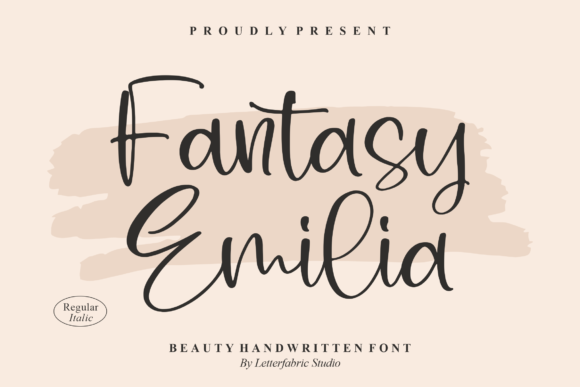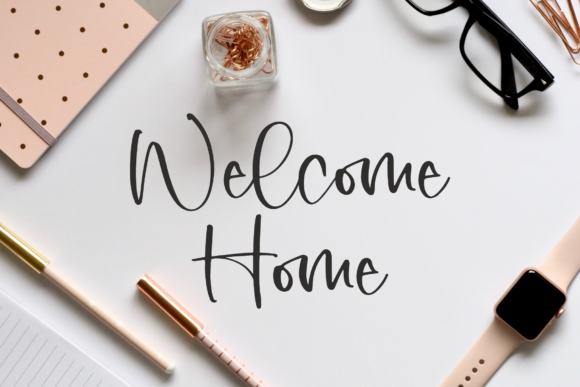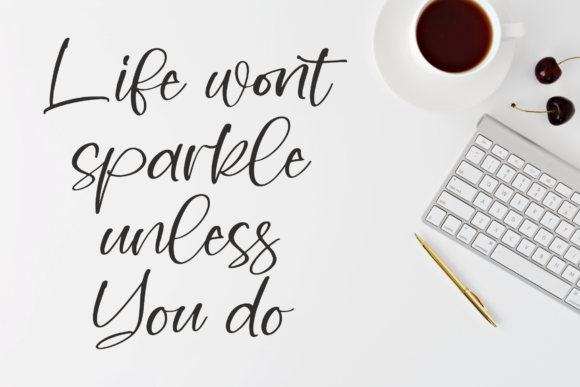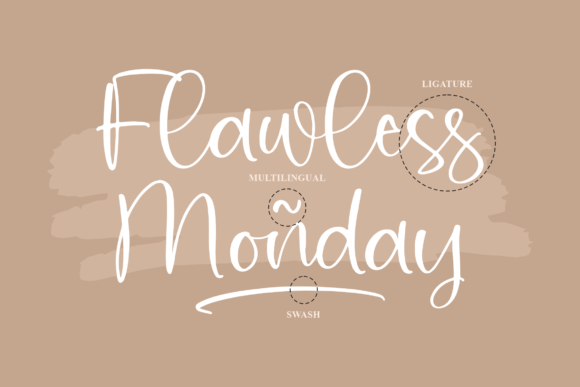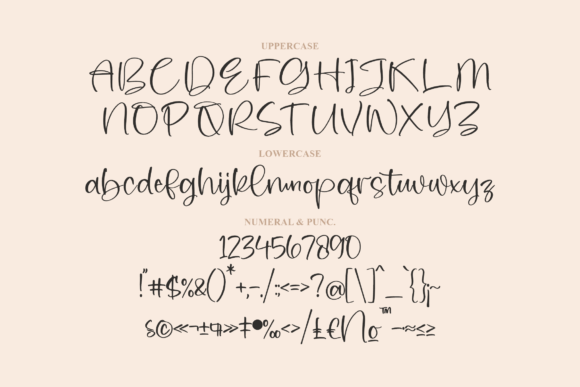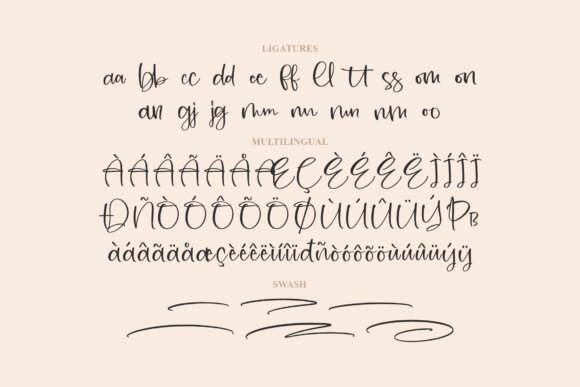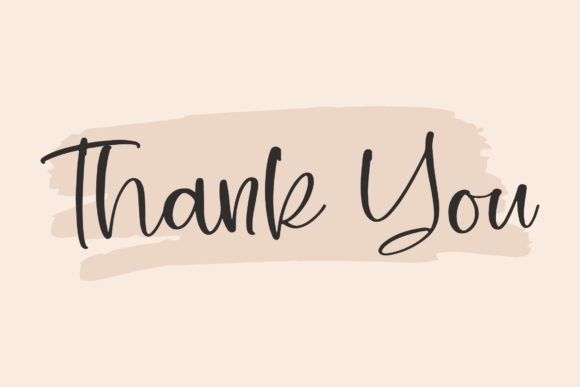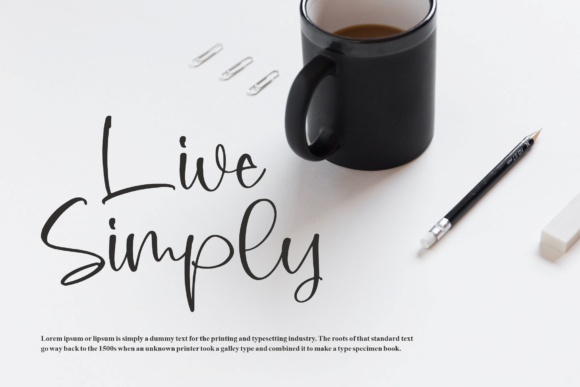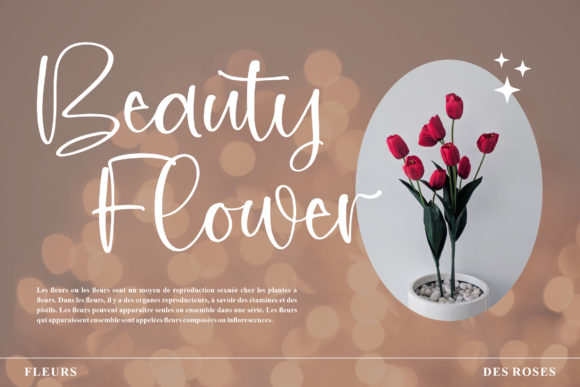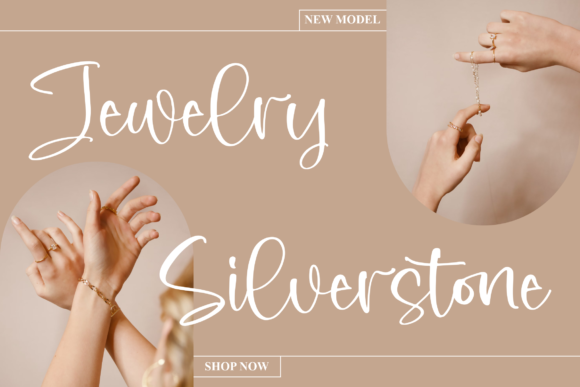
Fantasy Emilia Font
About Fantasy Emilia Font
Introducing Fantasy Emilia, a beautiful handwritten font crafted to add a touch of charm and elegance to a wide range of creative projects. This versatile font is well-suited for diverse applications, including logos, branding projects, homeware designs, product packaging, quotes, posters, shopping bags, t-shirts, book covers, name cards, invitations, greeting cards, labels, photography watermarks, special events, and any other project that requires a beautiful script taste.
Fantasy Emilia stands out with its unique and enchanting handwritten style, bringing a sense of warmth and personality to your designs. Whether you’re creating a logo, enhancing product packaging, or designing a special event invitation, Fantasy Emilia adds a beautiful script taste that elevates the visual appeal of your work.
For branding projects, Fantasy Emilia becomes a distinctive element in establishing a memorable brand identity. Its handwritten charm adds a personal touch to logos and promotional materials, ensuring your brand communicates authenticity and approachability.
In the realm of product design, Fantasy Emilia lends an artistic touch to packaging, mugs, and labels. The handwritten font introduces a sense of creativity and handmade craftsmanship, making your products stand out with a unique and inviting aesthetic.
On apparel like t-shirts, Fantasy Emilia becomes a stylish choice for incorporating quotes or phrases. Its beautiful script taste adds a trendy and artistic dimension to fashion items, allowing you to create designs that resonate with a modern and expressive audience.
Printed materials such as book covers, name cards, and invitations benefit from Fantasy Emilia’s versatile script. Its beautiful and handwritten design ensures a cohesive and visually appealing look across various design contexts, making it a reliable choice for creating captivating collateral.
Fantasy Emilia is not just a font; it’s a design asset that brings a beautiful handwritten script taste to all your creative projects. Whether for special events, photography watermarks, or any other lovely endeavor, Fantasy Emilia adds a touch of timeless beauty. Embrace the enchantment and charm of Fantasy Emilia as you infuse your designs with the beauty of this handwritten font.